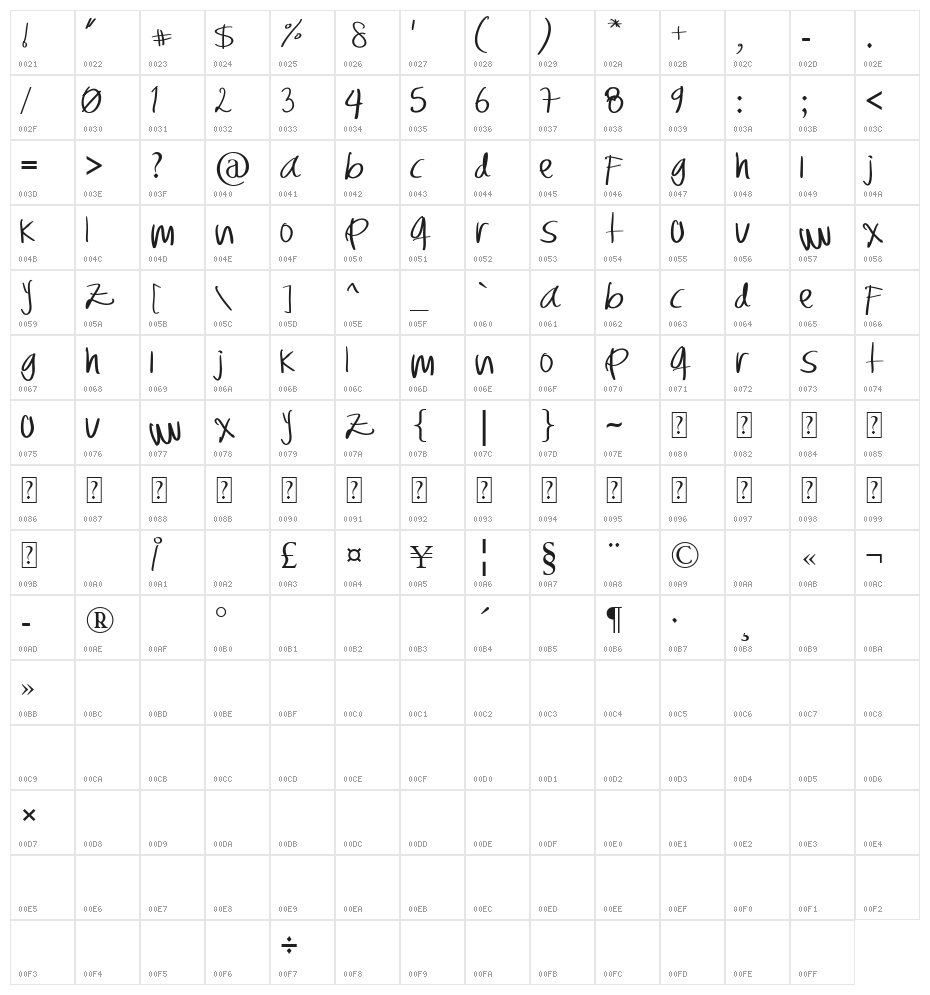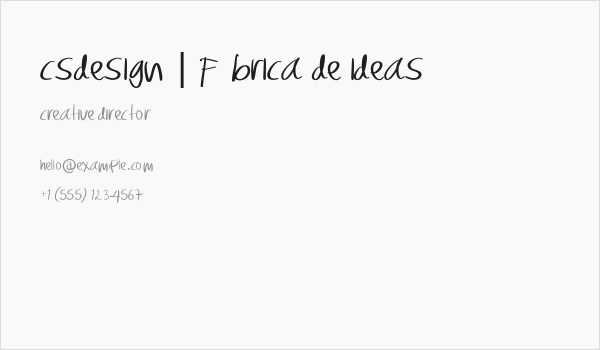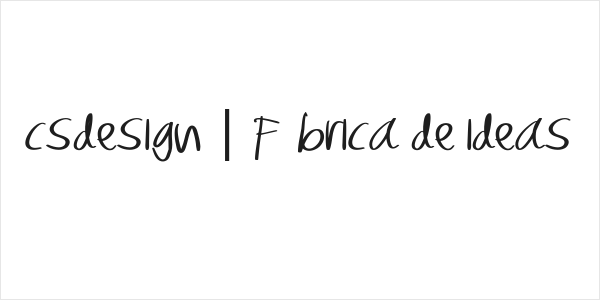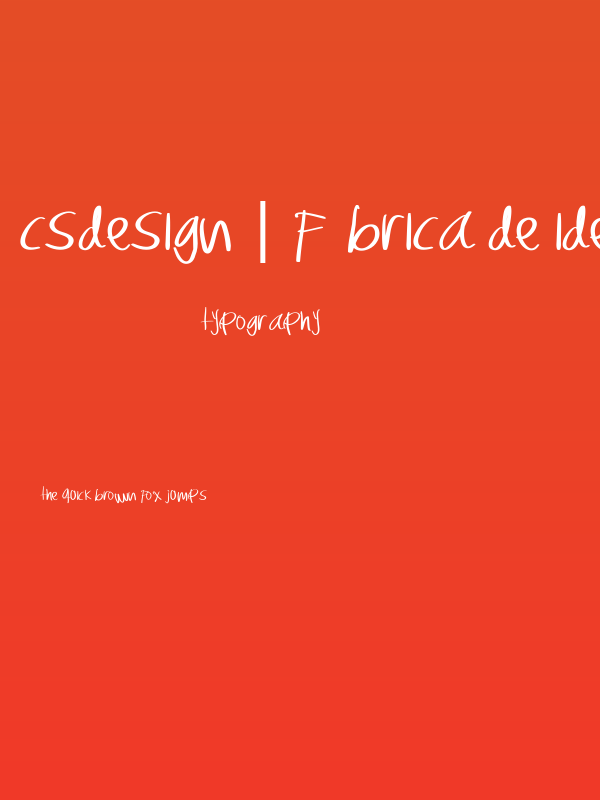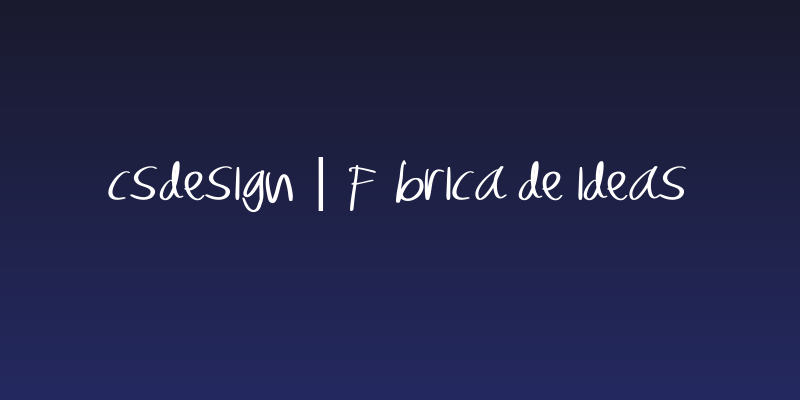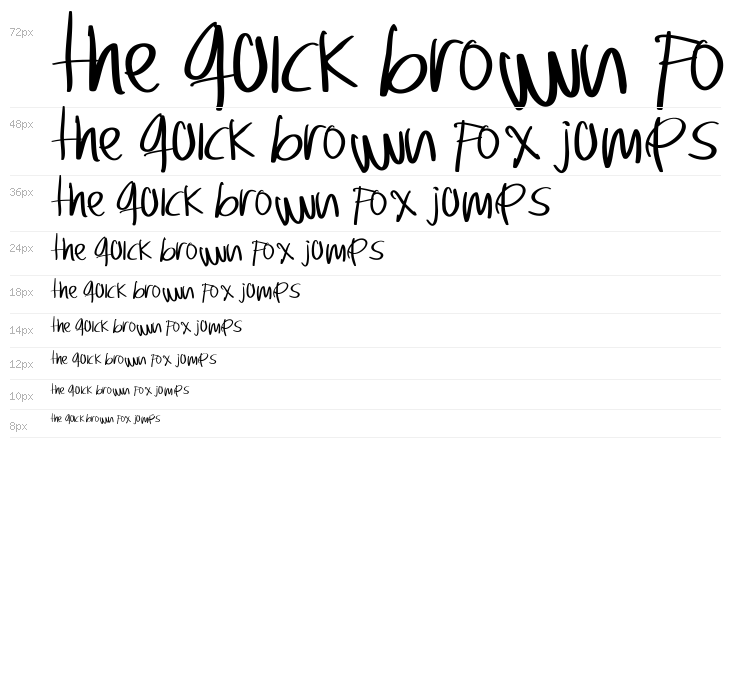
CSDESIGN | Fábrica de ideas Font
CSDESIGN | Fábrica de ideas Description
This font exudes a playful and casual handwritten style, characterized by its fluid and organic strokes. The letters are slightly slanted, giving it a dynamic and lively appearance. The uppercase and lowercase letters maintain a consistent style, with rounded edges and varying stroke widths that add to its informal charm. The numerals and special characters are crafted with the same playful essence, ensuring a cohesive look throughout. This font is perfect for projects that require a personal touch, such as invitations, greeting cards, or creative branding.
| Proposed Projects | Ideal for invitations, greeting cards, creative branding, and personal projects. |